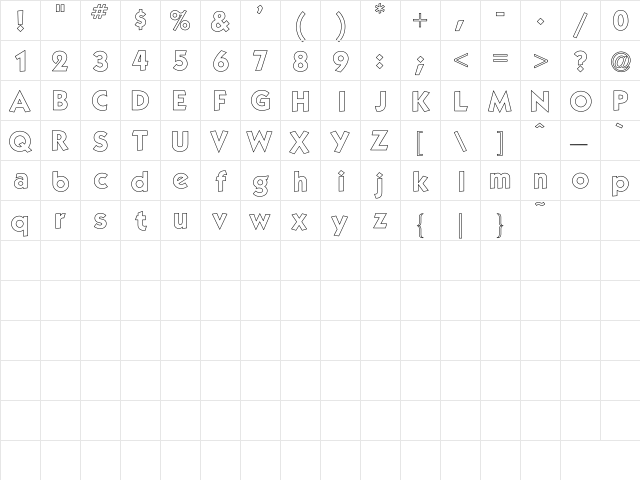
Kabel Hollow Book
Design Context for Kabel Hollow Typeface
Kabel Hollow offers clean, dependable letterforms without strong stylistic allegiance, making it a practical choice for designers who need flexibility.